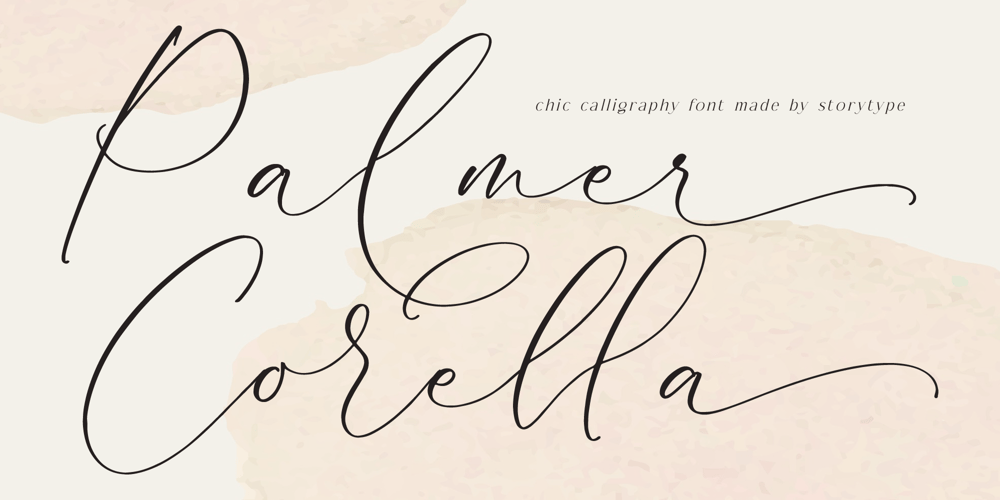
Palmer Corella Font Family was designed by Heru Utama Putra and published by Letterena Studios. Palmer Corella contains 2 styles and family package options. Palmer Corella – Chic Calligraphy Font with a luxurious, unique, and modern font. This typeface is perfect for an elegant & luxury logo, book or movie title design, fashion brand, magazine, clothes, lettering, quotes, and so much more.